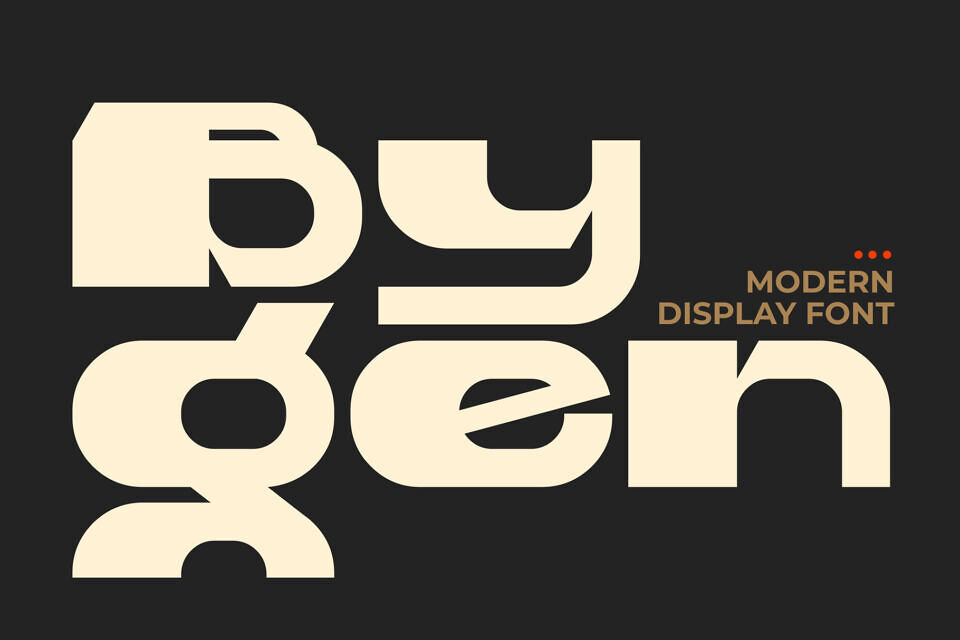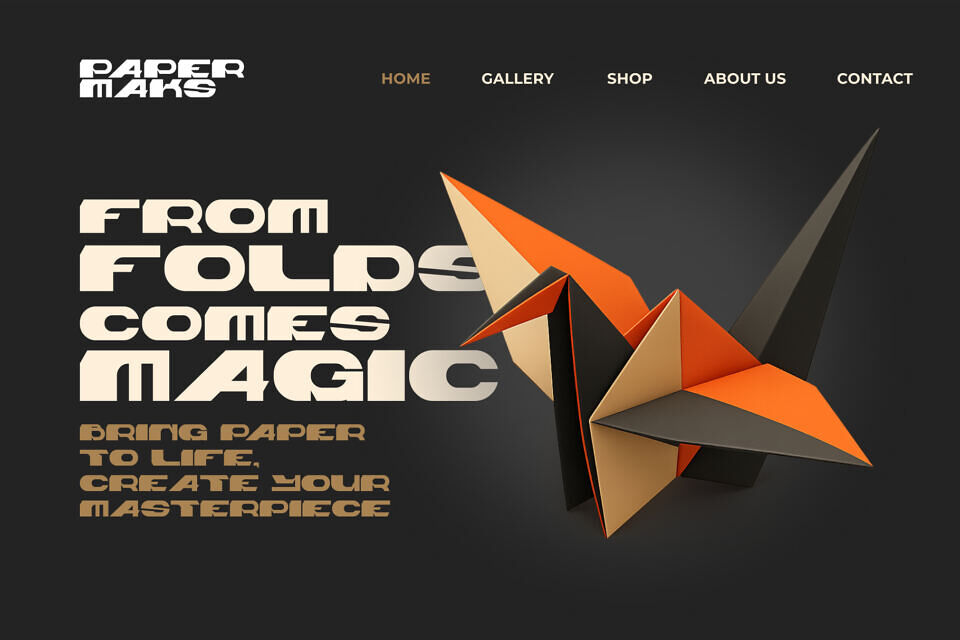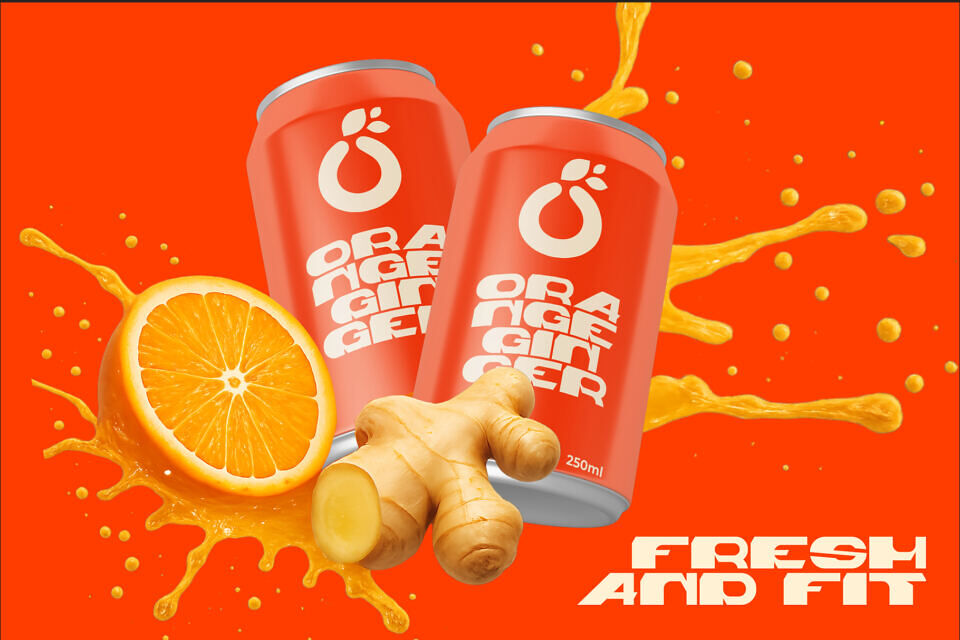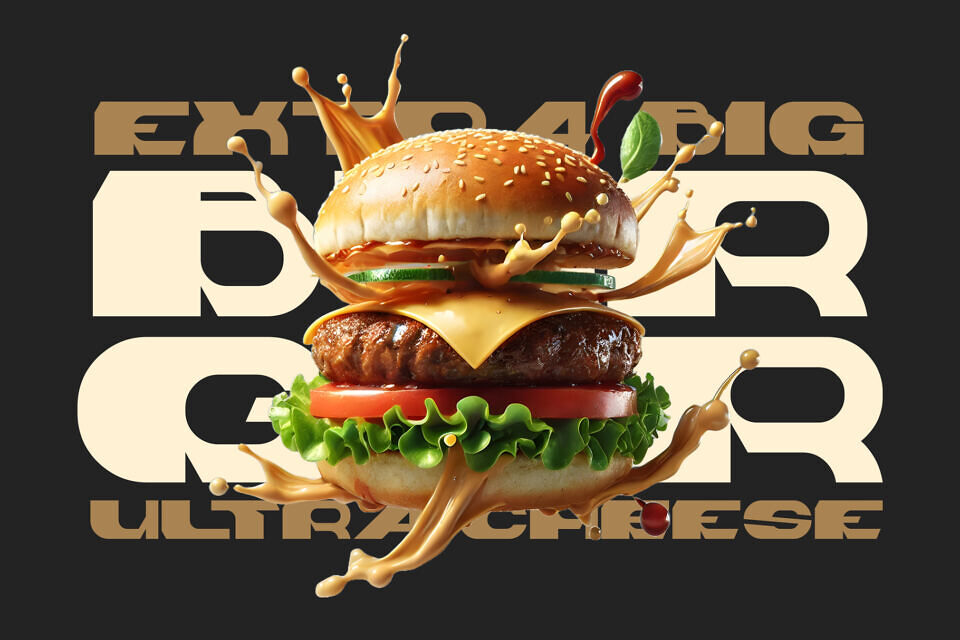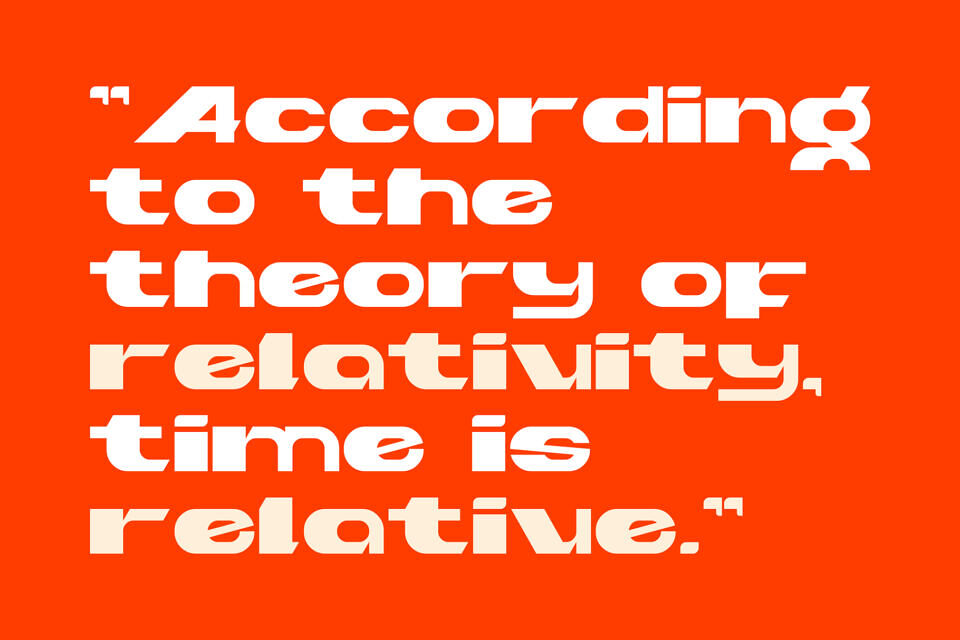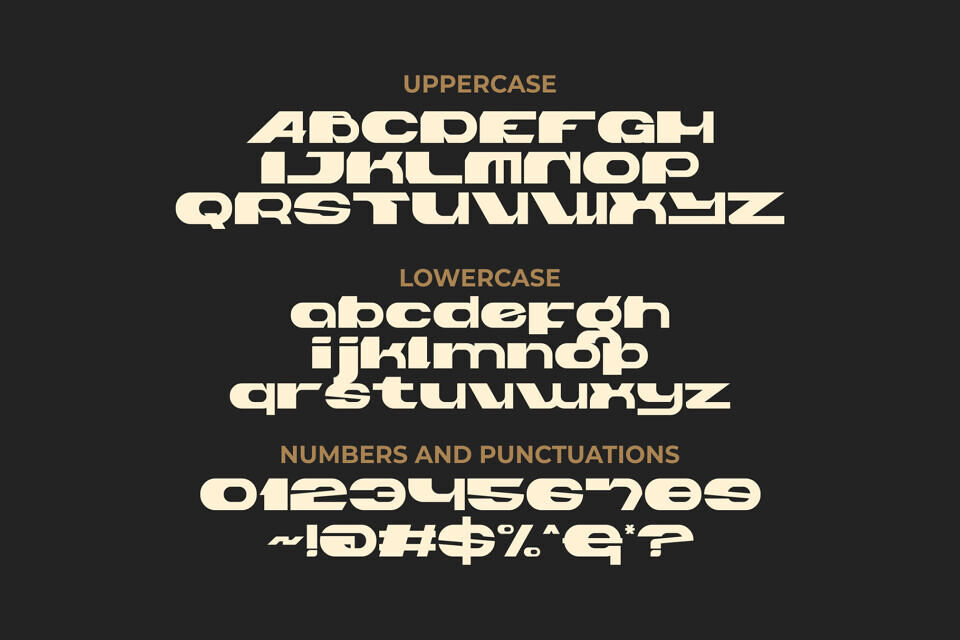
Bygen Font
Bygen is a modern display font built for creative professionals who want to make their branding, posters, social media graphics, and digital projects stand out.
Its bold geometric style, clean curves, and futuristic aesthetic make it a perfect choice for designers aiming to create impactful visuals that resonate with today’s audiences.